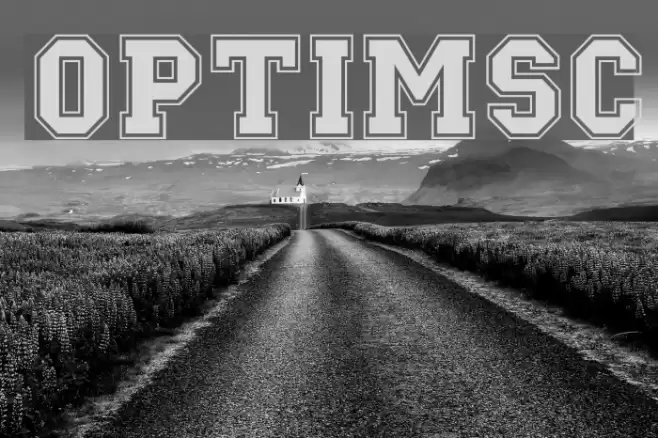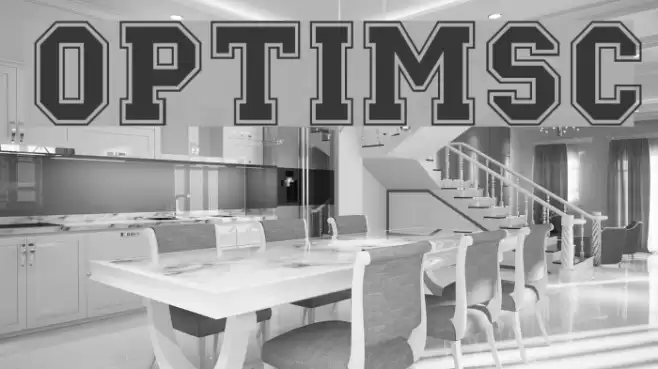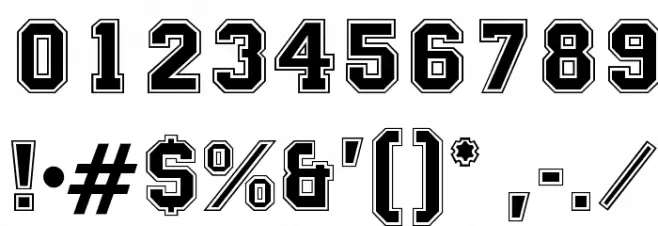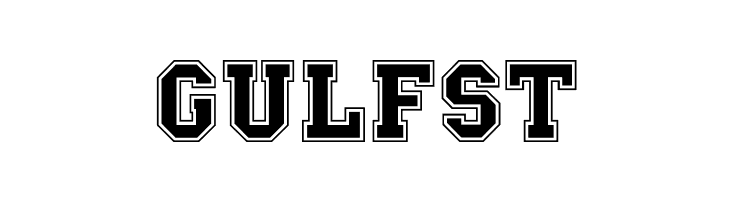
OPTIMackeySportContour Font
OPTIMackeySportContour Description
This font features a bold, athletic style with a strong, impactful presence. The letters are outlined, creating a contour effect that adds depth and dimension. The uppercase characters are uniform in height, with sharp angles and clean lines that convey a sense of strength and precision. The numbers and special characters maintain this bold, outlined style, ensuring consistency across all elements. The font's design is reminiscent of sports jerseys or team logos, making it ideal for projects that require a dynamic and energetic feel.
A bold, outlined font with a sporty, dynamic style from Uncategorized fonts.
- Proposed Projects: Ideal for sports team branding, athletic event posters, and dynamic logo designs.